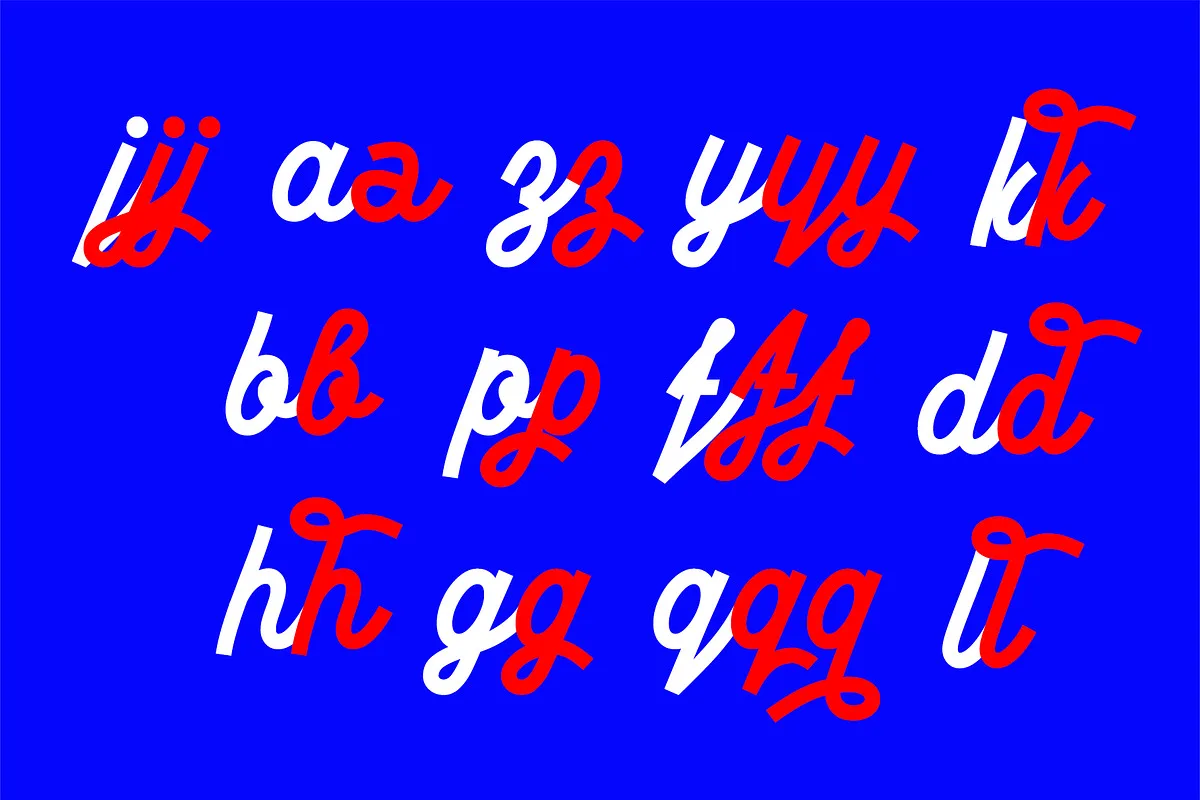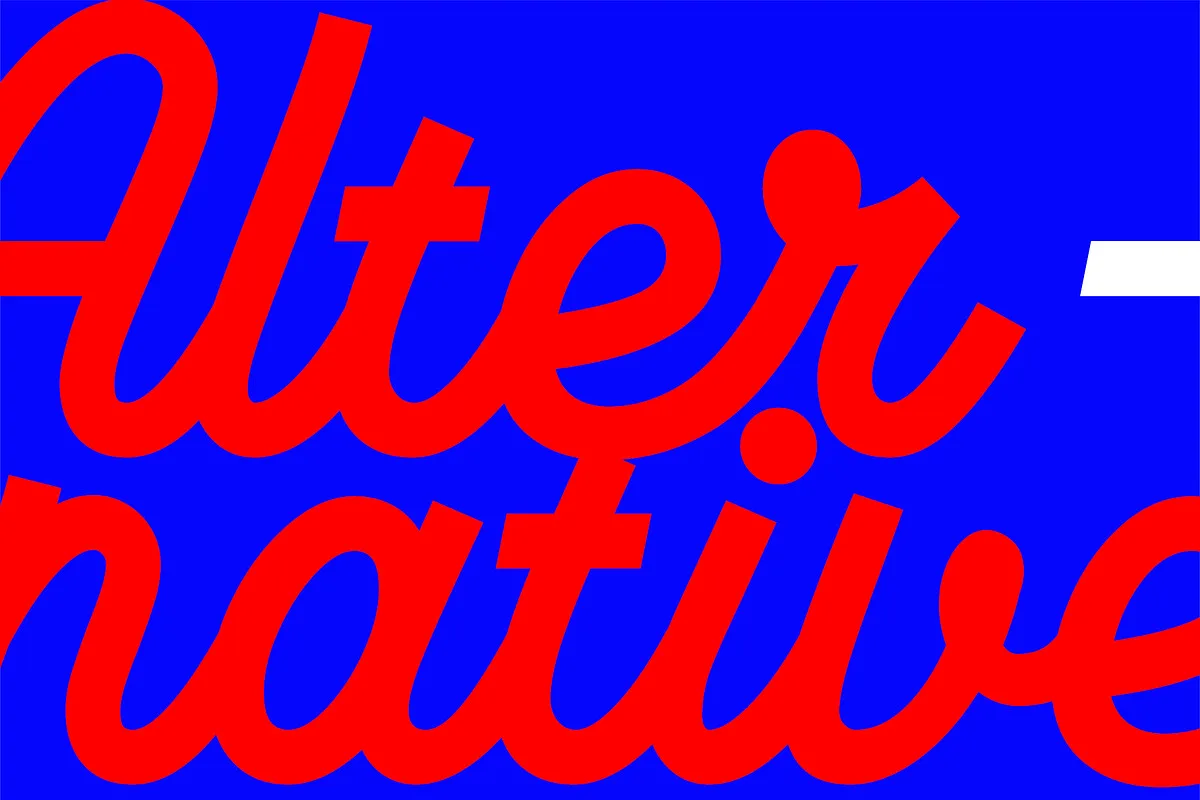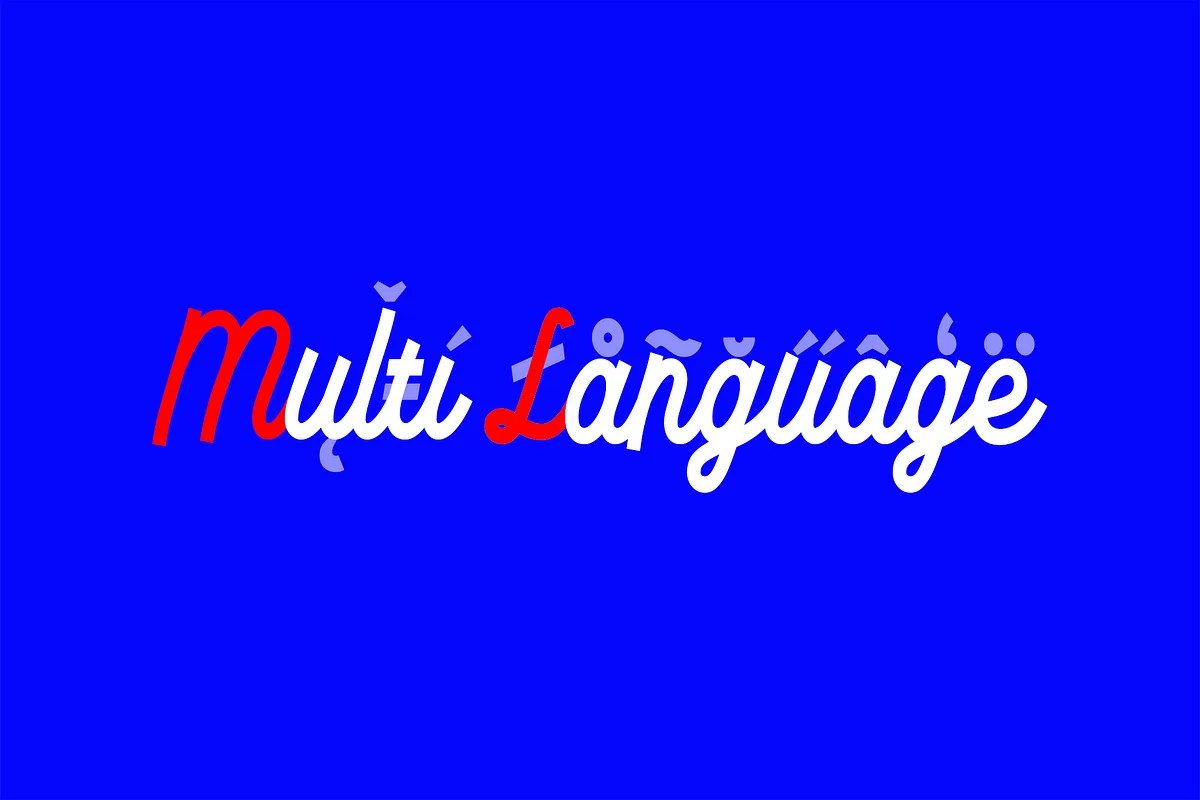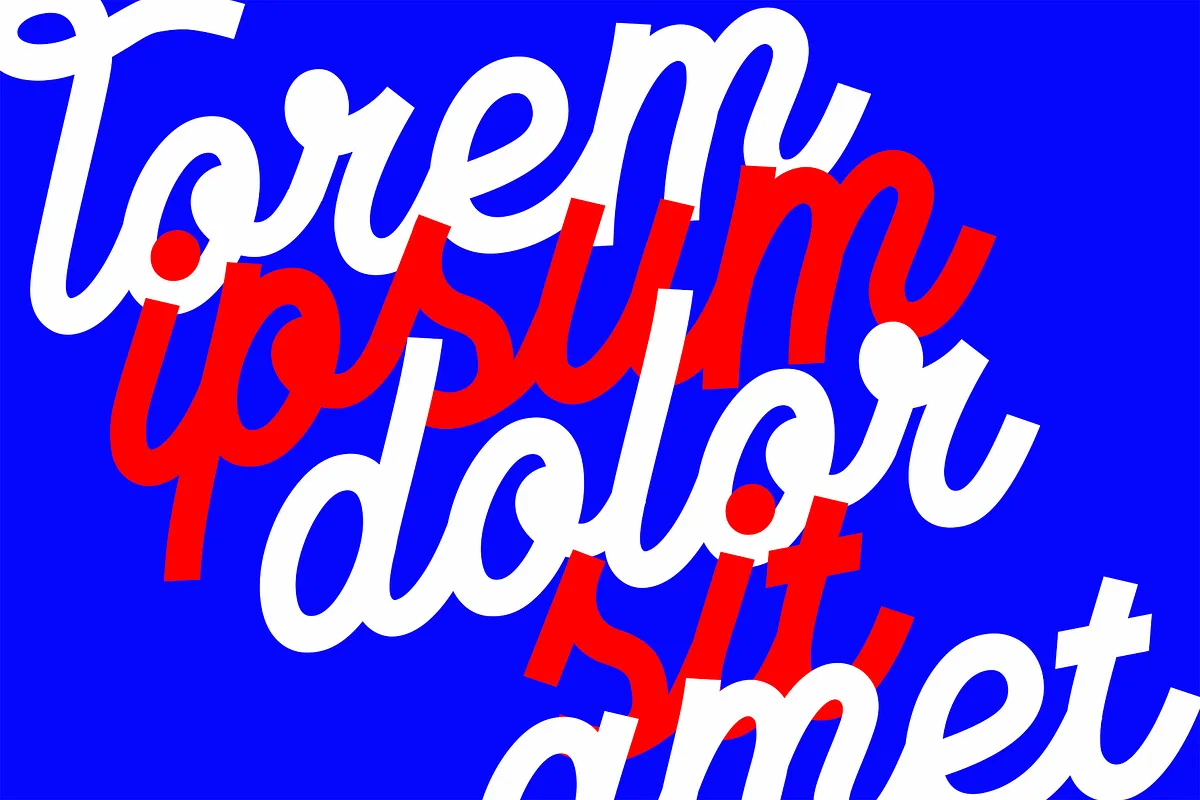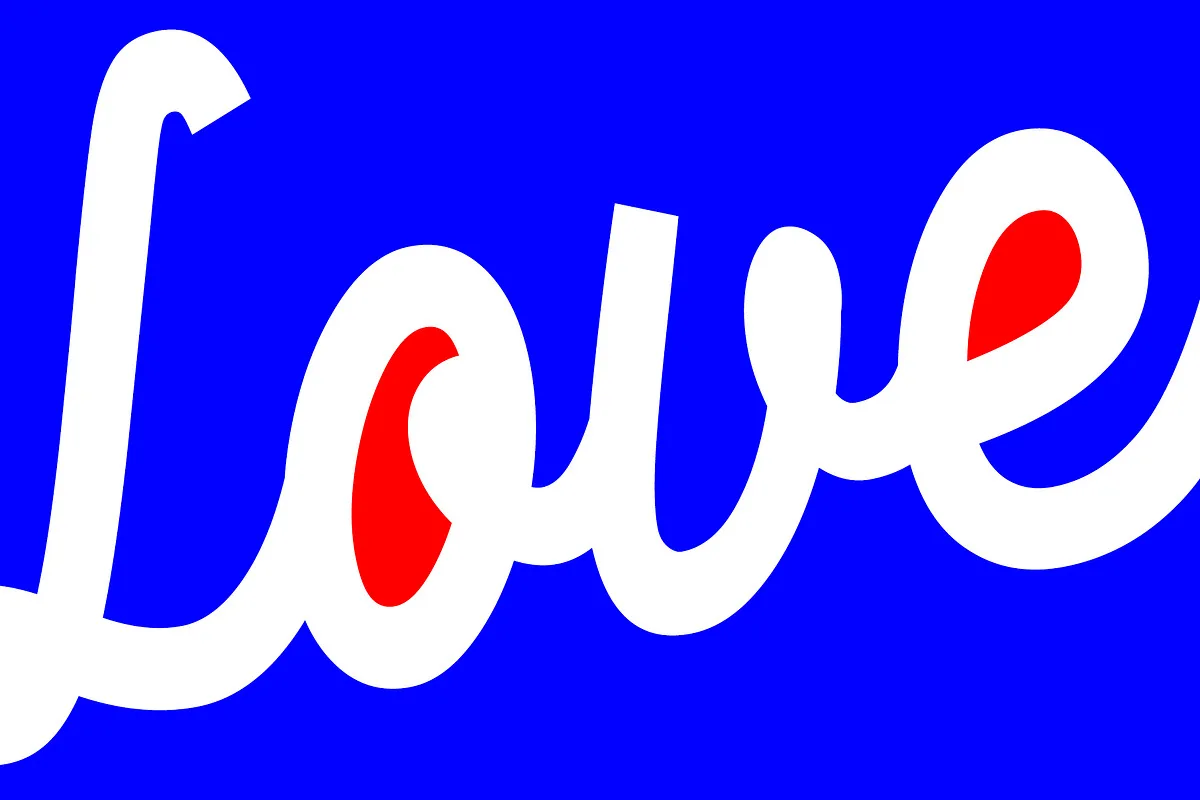
Geraldica is a monoline script font supports foreign languages and has special characters such as ß, ñ, ç, etc. The font set has 381 symbols including alternates with different calligraphic swashes.